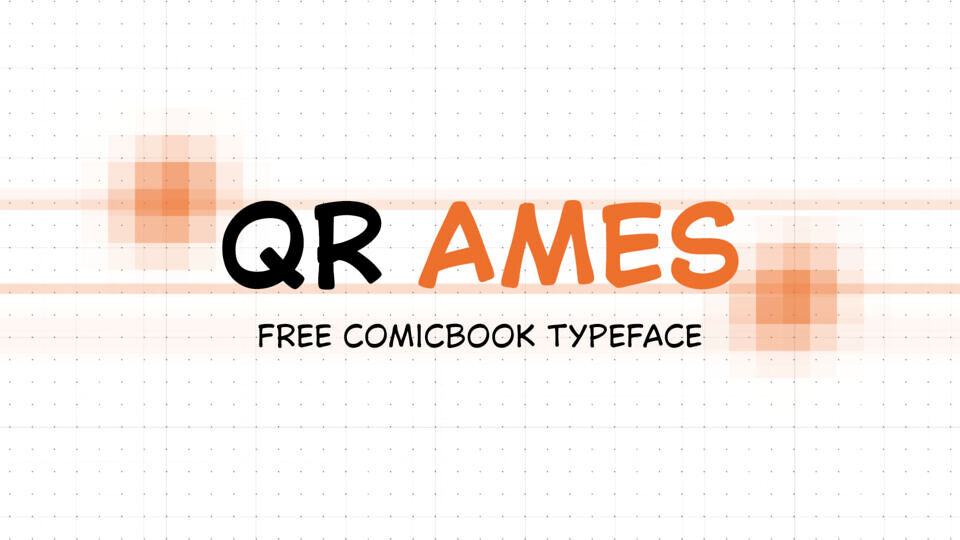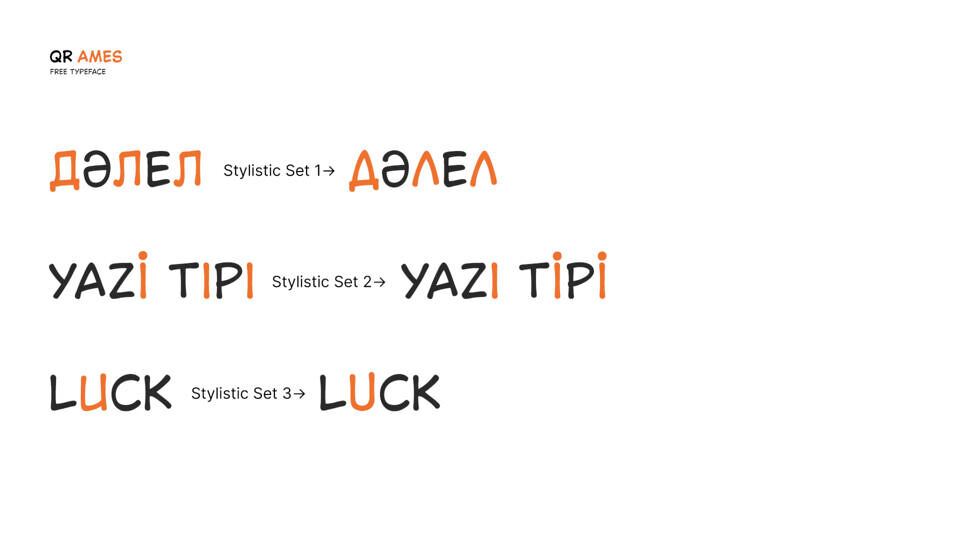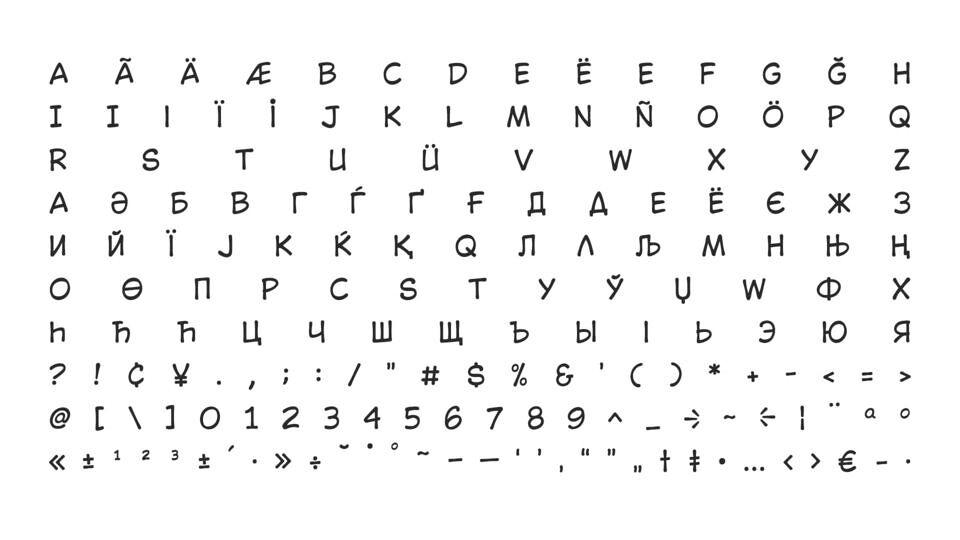
QR Ames is a versatile, free comic book typeface designed by Abay Emes. Inspired by 1995’s iconic Wildwords lettering, this font brings a hand-drawn, energetic feel to creative projects. The paid version features eight diverse styles, including Bold, ExtraBold, Black, and Condensed, plus unique stylistic sets for custom character alternates.